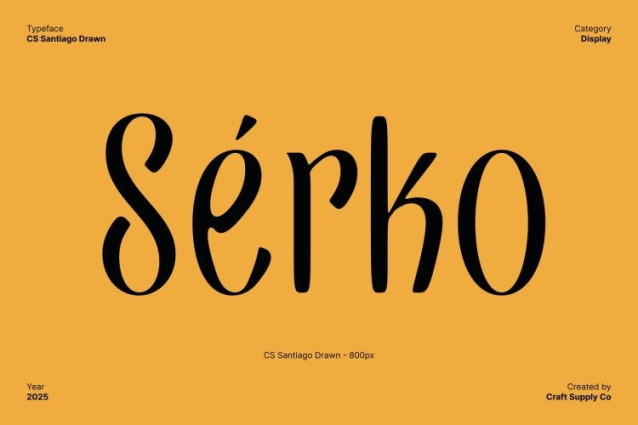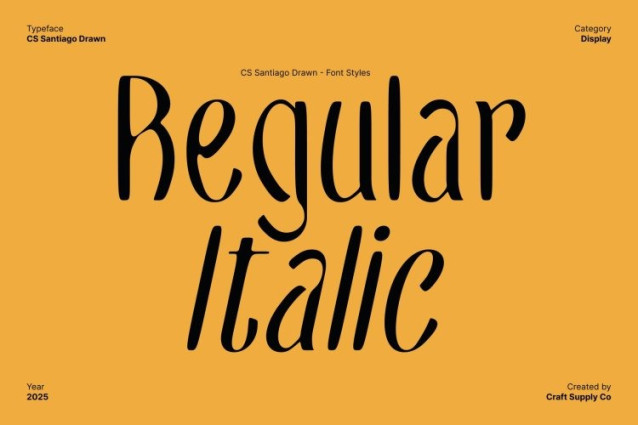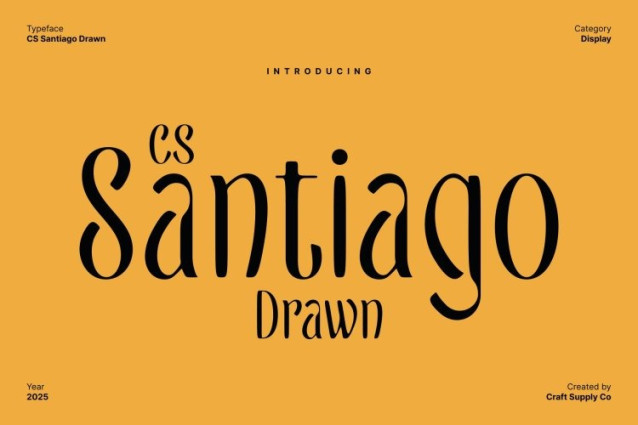
CS Santiago Drawn Font
CS Santiago Drawn Font This is a trendy and eye-catching sans serif font that blends clean modern lines with subtle Art Nouveau-inspired curves. Its stylish forms capture the essence of contemporary online culture, making it perfect for designers looking to create visually appealing content that resonates with social media audiences and lifestyle brands.
Hand-Drawn Effect for Unique Personality
The drawn effect adds organic imperfections and textured strokes to each character, giving a distinctive, handcrafted feel. These subtle irregularities make the font stand out from typical geometric sans serifs, adding depth, charm, and individuality to every design. The result is a typeface that feels personal, creative, and visually engaging.
Perfect for Social Media, Instagram, and Lifestyle Branding
This font thrives in applications where visual impact and aesthetic appeal are essential. It is ideal for Instagram posts, social media graphics, lifestyle branding, blog headers, and modern digital campaigns. The combination of trendy sans serif clarity and expressive drawn details ensures your content captures attention and leaves a memorable impression.
A Versatile Typeface with Creative Modernity
By merging sleek sans serif forms with Art Nouveau inspiration and hand-drawn texture, this font delivers a unique and versatile display font. It balances contemporary style with handcrafted artistry, making it perfect for projects that want to feel trendy, creative, and distinctly original.